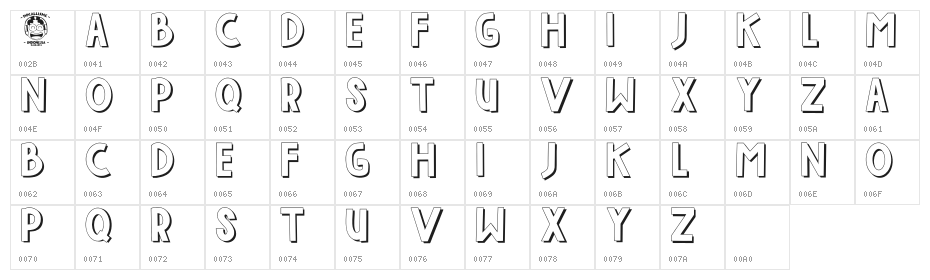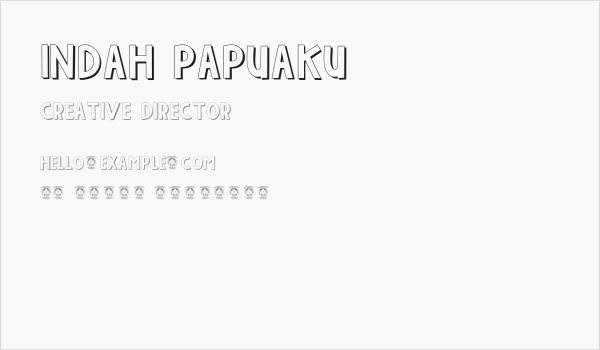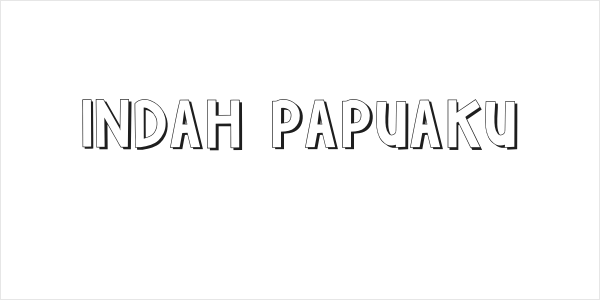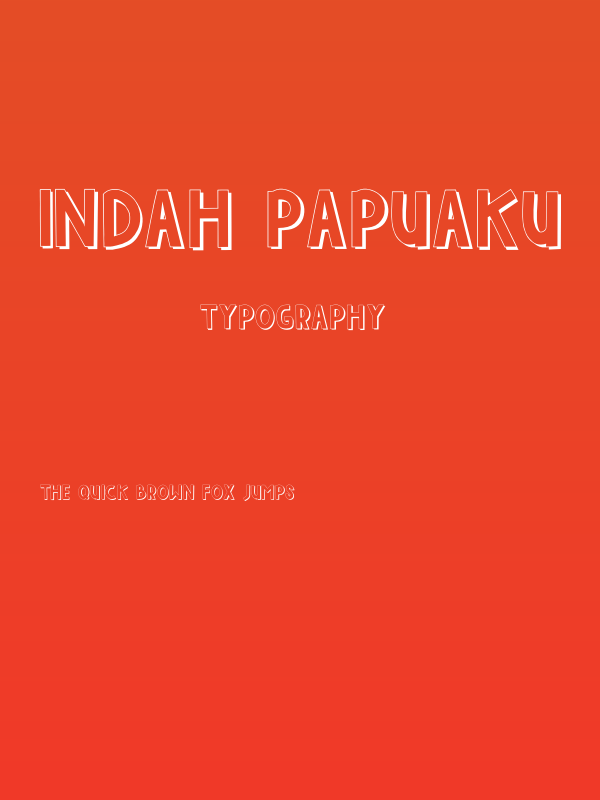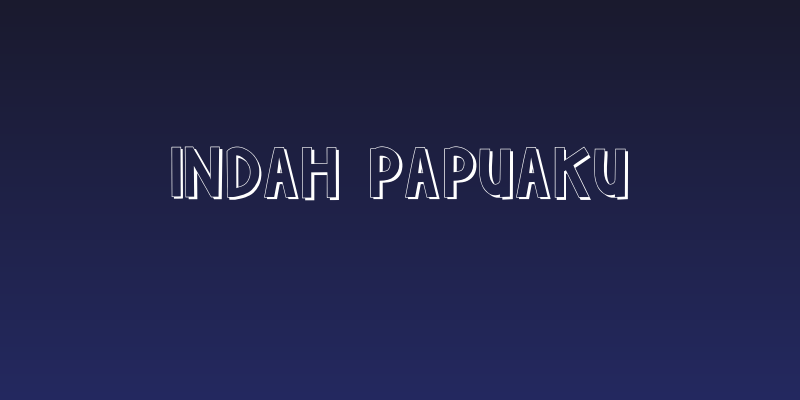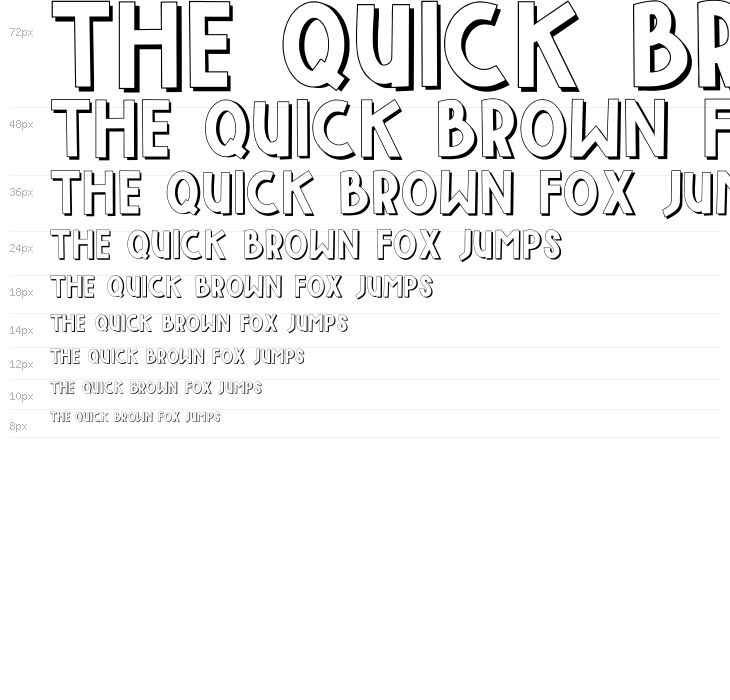
INDAH PAPUAKU Font
INDAH PAPUAKU Description
This font features a bold, three-dimensional style with a playful and dynamic appearance. The letters are uppercase and have a shadow effect that gives them depth and a sense of movement. The strokes are thick and consistent, creating a strong visual impact. The font's design is reminiscent of comic book lettering, making it suitable for projects that require a fun and engaging look. The characters are well-spaced, ensuring readability while maintaining a distinctive style.
Overall StylePlayful, Comic
Proposed ProjectsIdeal for children's books, comic strips, playful branding, and eye-catching posters.